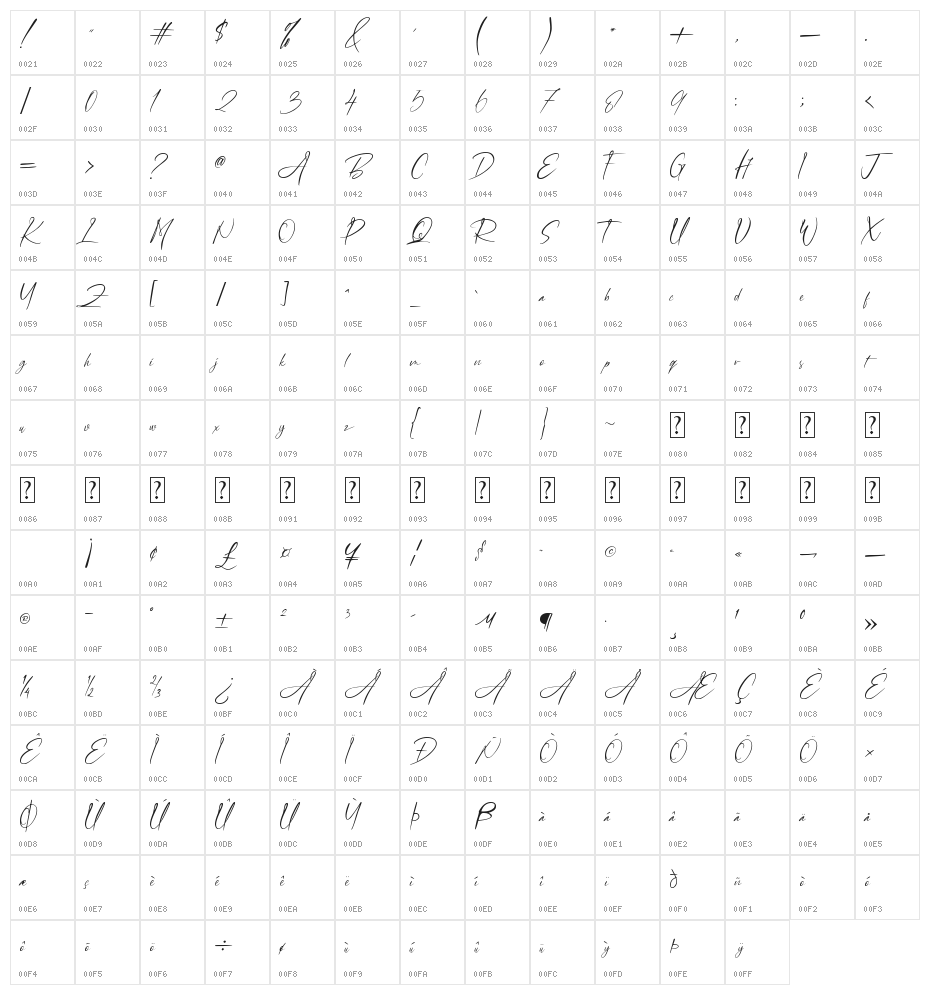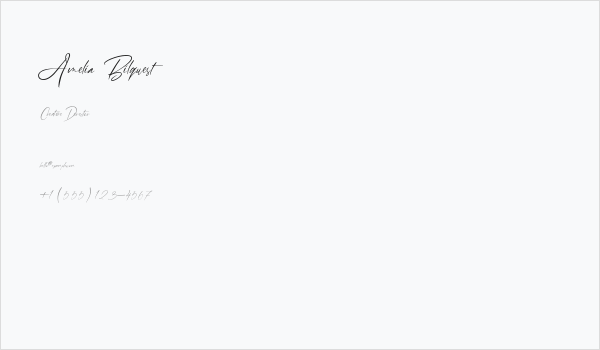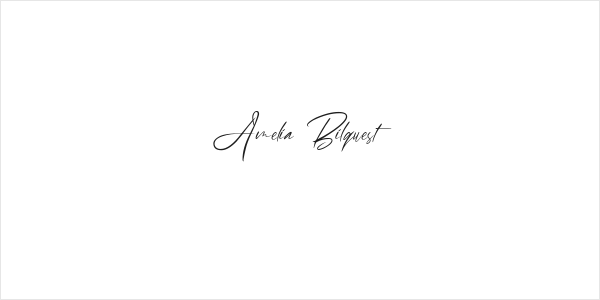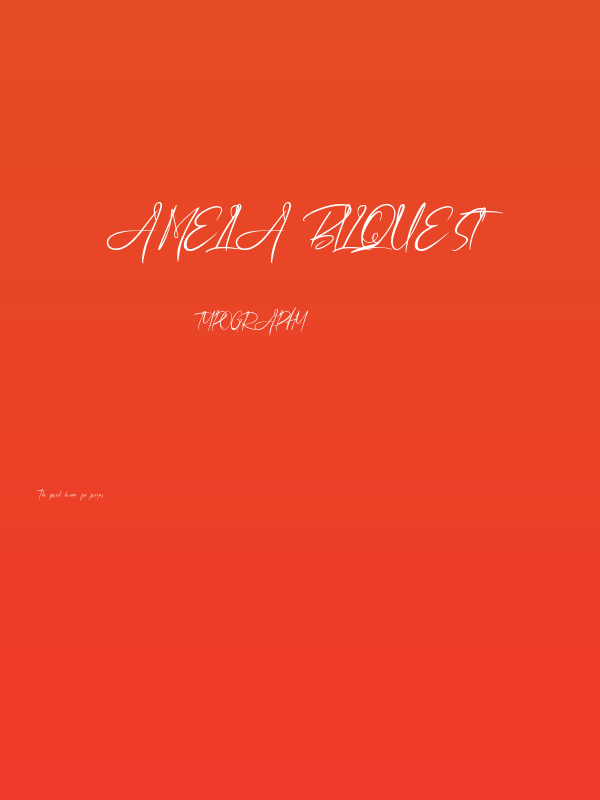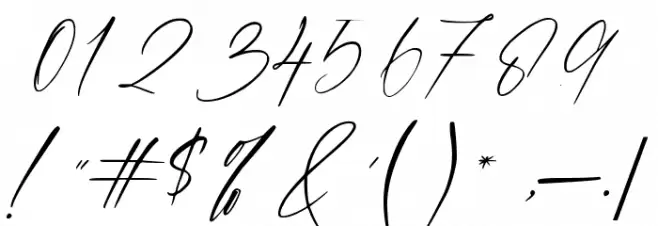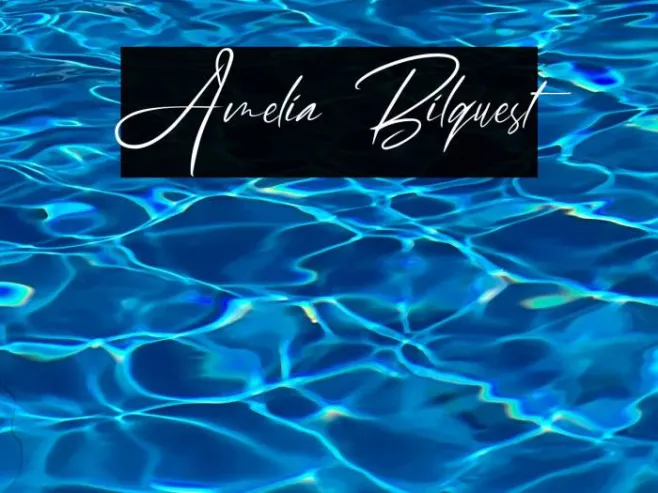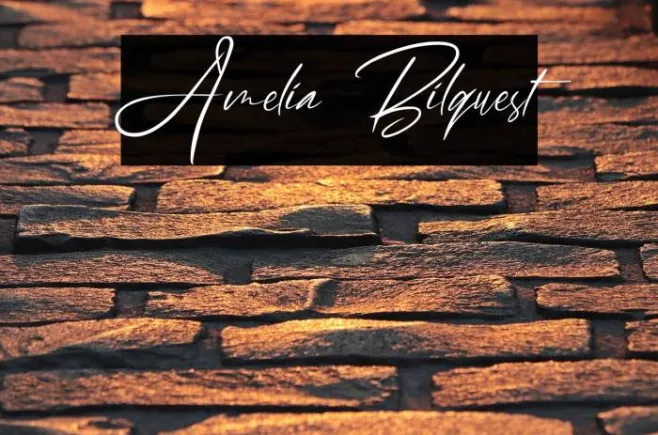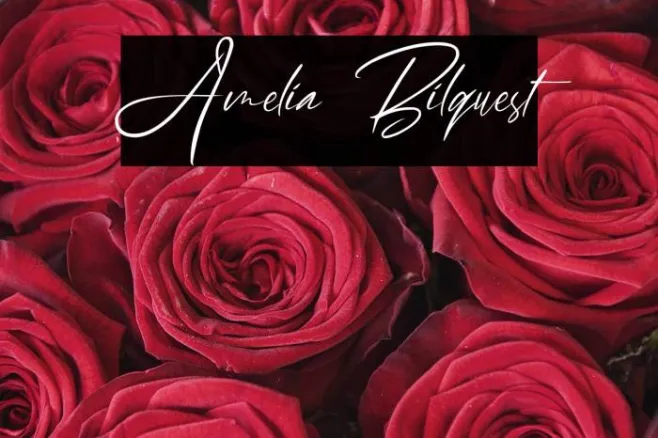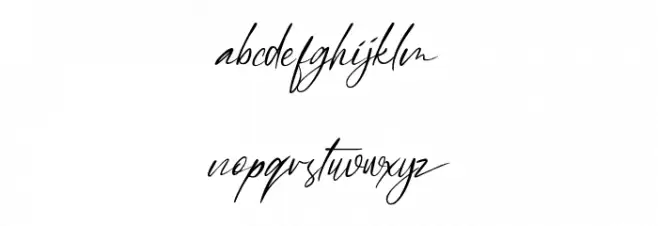
Amelia Bilquest Font
Amelia Bilquest Description
A flowing, elegant script font with a handwritten style, featuring high contrast and elongated letterforms.
| Proposed Projects | Wedding invitations, greeting cards, elegant branding. |